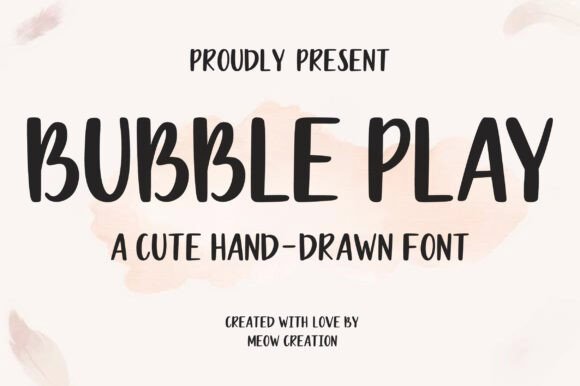
The Joy of Bubble Play Font: A Designer’s New Best Friend
I’ll never forget the time I was working on a project for a kids’ craft brand, and I just couldn’t find the right font to match their playful vibe. I scrolled through page after page of Google Fonts, but nothing seemed quite right. That was until I stumbled upon Bubble Play Font. Its bold, rounded letterforms and cheerful character instantly grabbed my attention, and I knew I’d found the perfect fit. In this article, I’ll share my love for Bubble Play Font, its features, and how to make the most of it in your designs.
An Honest Review of Bubble Play Font
- ✅ Unique and playful design: Bubble Play Font has a lively, cartoon-style look that’s perfect for kids’ designs, crafts, and creative branding projects.
- ✅ Highly versatile: This font works beautifully for both digital and print use, making it a great addition to any designer’s toolkit.
- ✅ Easy to read: The chunky shapes and smooth curves of Bubble Play Font make it easy to read, even at smaller sizes.
- ✅ Great for attention-grabbing headlines: The bold and cheerful character of this font makes it perfect for grabbing attention and adding personality to your designs.
- ⚠️ Limited use for body text: While Bubble Play Font is great for headlines and titles, it may not be the best choice for longer body text due to its bold and playful nature.
- ⚠️ May not work well for formal designs: The playful and cheerful character of this font may not be suitable for more formal designs, such as business cards or corporate branding.
The Story Behind Bubble Play Font
Bubble Play Font was designed with one goal in mind: to create a fun and playful font that’s perfect for kids’ designs and creative branding projects. The designer, a passionate typographer and lover of all things playful, wanted to create a font that would bring joy and personality to any design. With its bold, rounded letterforms and cheerful character, Bubble Play Font is sure to delight designers and audiences alike.
| Font Name | Bubble Play Font |
| Author | Meow Creation |
Q: What type of designs is Bubble Play Font best suited for?
A: Bubble Play Font is perfect for kids’ designs, crafts, t-shirts, stickers, posters, invitations, educational materials, and creative branding projects.
Q: Can I use Bubble Play Font for both digital and print projects?
A: Yes, Bubble Play Font works beautifully for both digital and print use, making it a versatile addition to any designer’s toolkit.